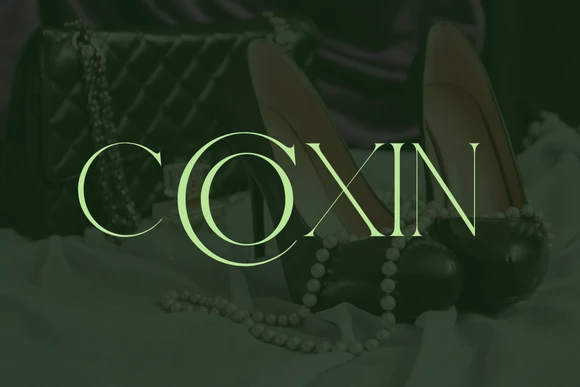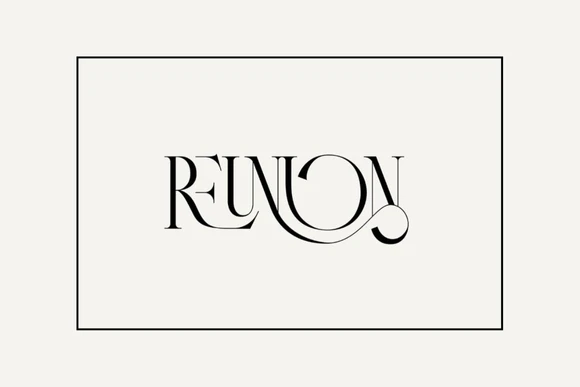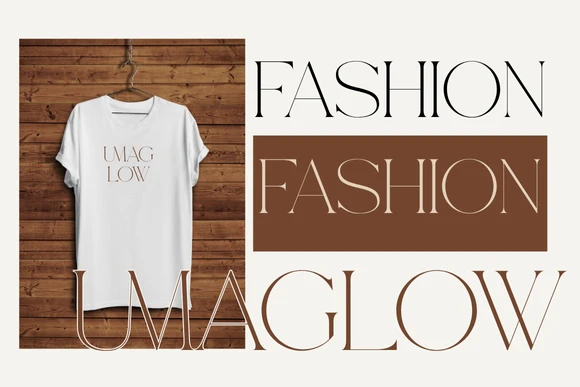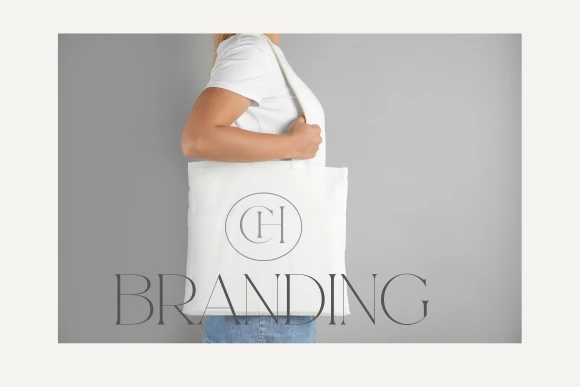
Elevate your designs with Varoca Font ā a modern, stylish, and highly legible typeface crafted for versatility. Perfect for logos, branding, invitations, packaging, websites, and social media graphics, Varoca brings a unique yet professional flair to any project. This font includes uppercase, lowercase, numbers, punctuation, and multilingual characters, making it ideal for both print and digital designs.
Whether youāre a designer, small business owner, or DIY creator, Varoca Font adds personality and sophistication to your creative work. |